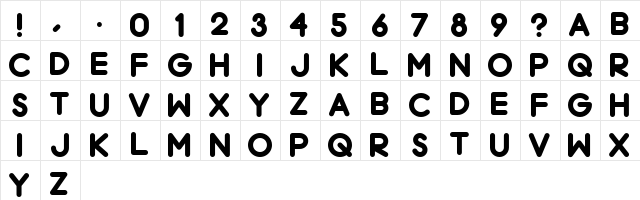
Chrome Black Regular
| Designer | Artem Sukhinin |
Design Context for Chrome Black Typeface
Chrome Black offers clean, dependable letterforms without strong stylistic allegiance, making it a practical choice for designers who need flexibility.